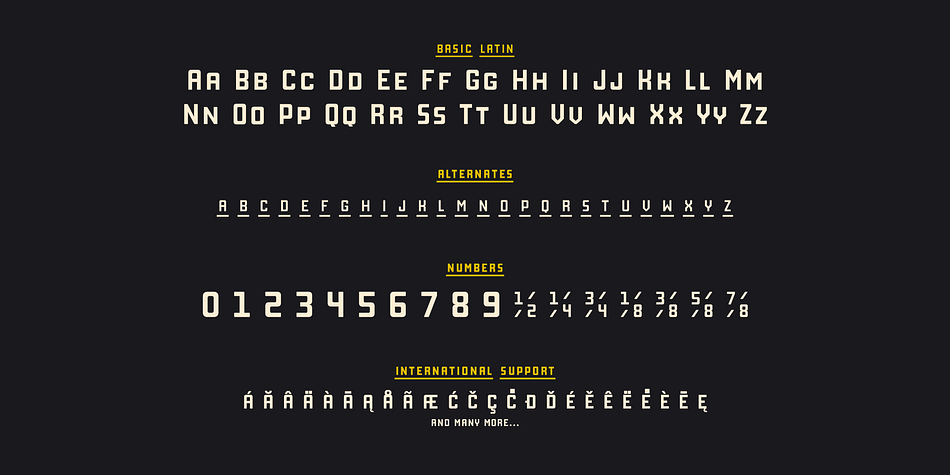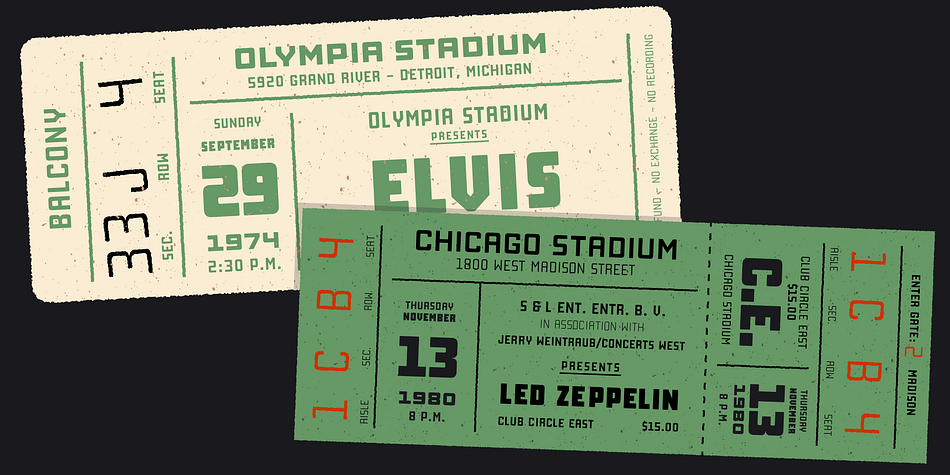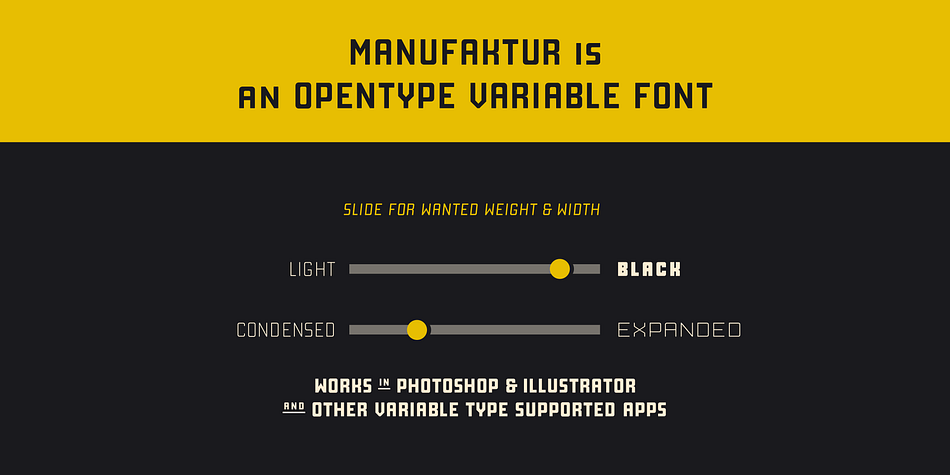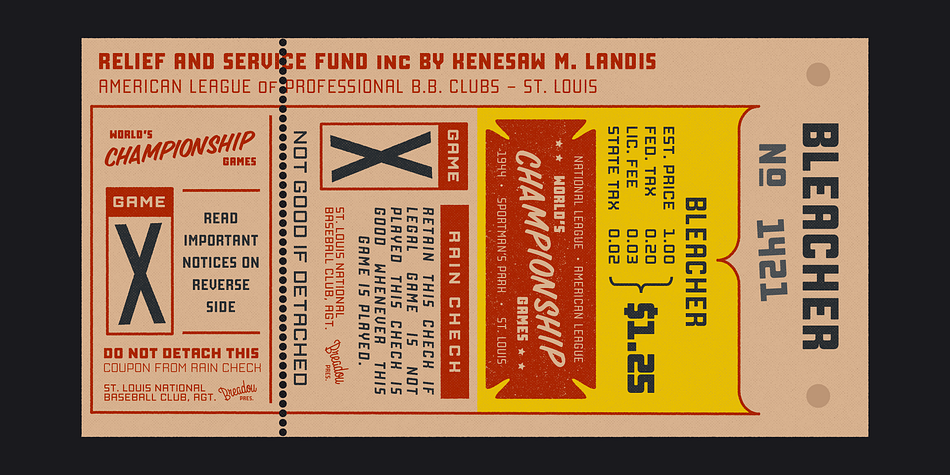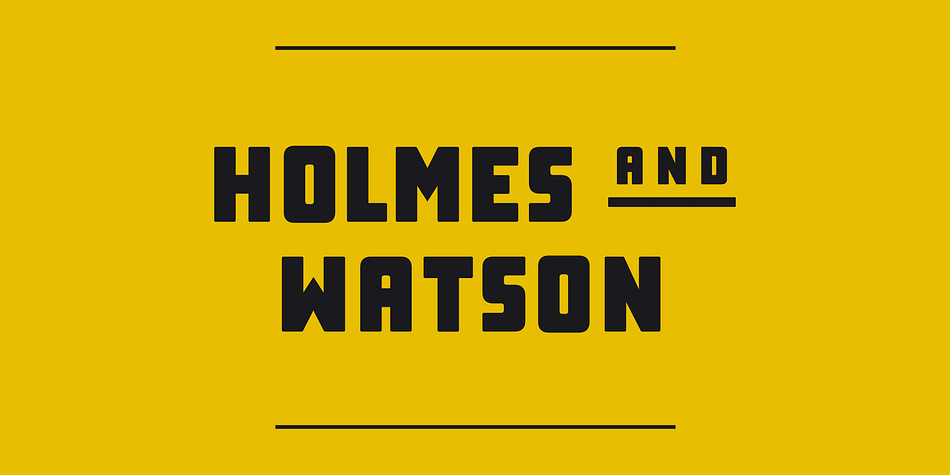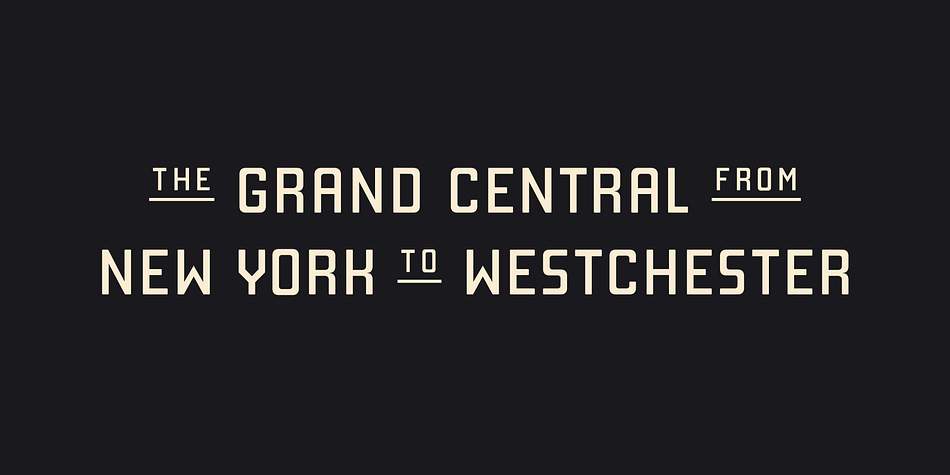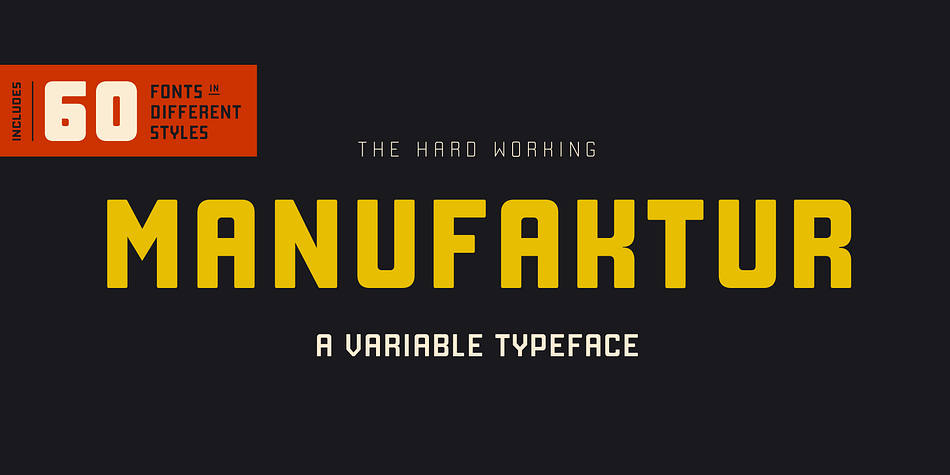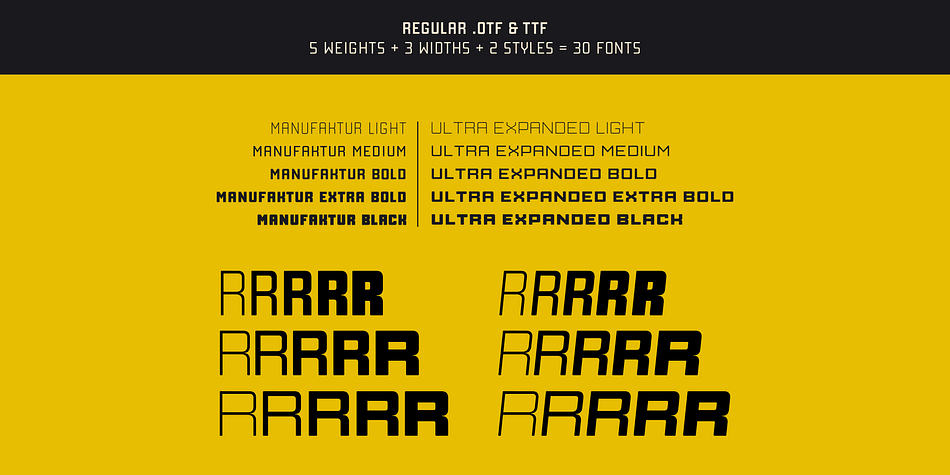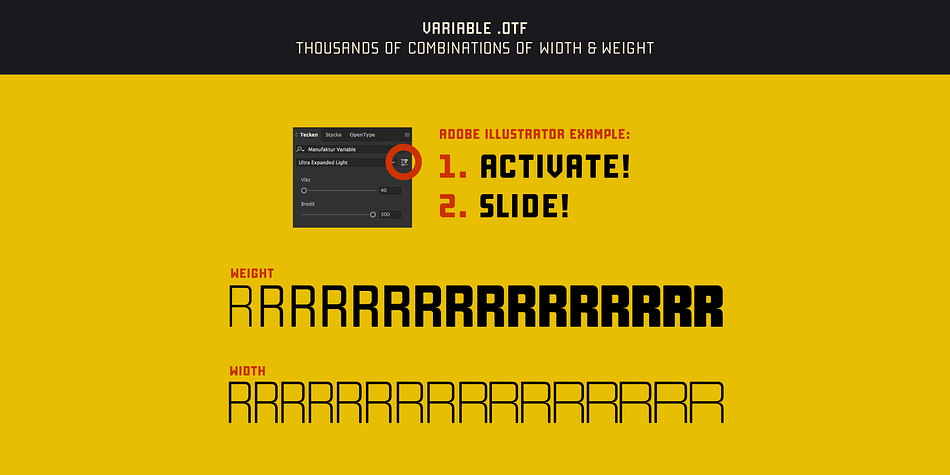
Designed by Daniel Feldt, Manufaktur is a display sans font family. This typeface has sixty styles and was published by Great Scott.
A typeface influenced by an old iron cast sign on an old Swedish industrial machine. The simple curves of the characters suited well for an 21st century update and the new and modern MANUFAKTUR is now a variable typeface with thousands of combinations of width and weight.
With an OpenType-enabled app - or your website - you can control the width and weight of the typeface via a slider or with code.
This hardworking sans serif is perfect for display use, signage, poster, prints, editorial use, branding, logos, magazines, films and lots more.
The variable weight and width makes MANUFAKTUR very versatile and flexible.